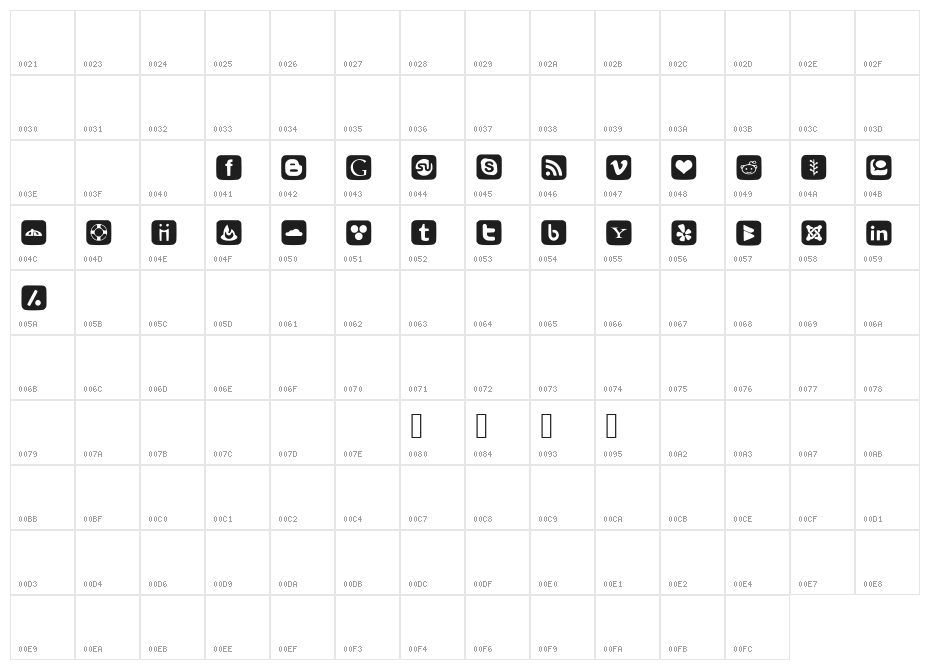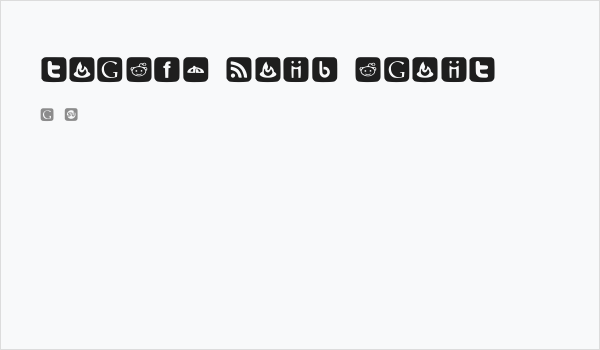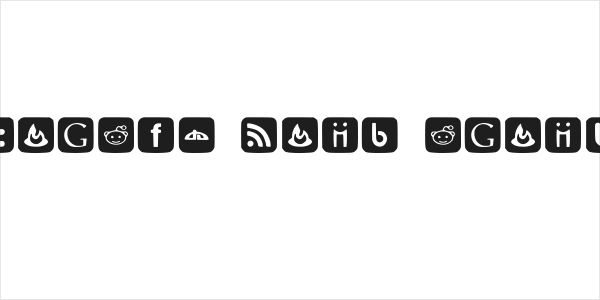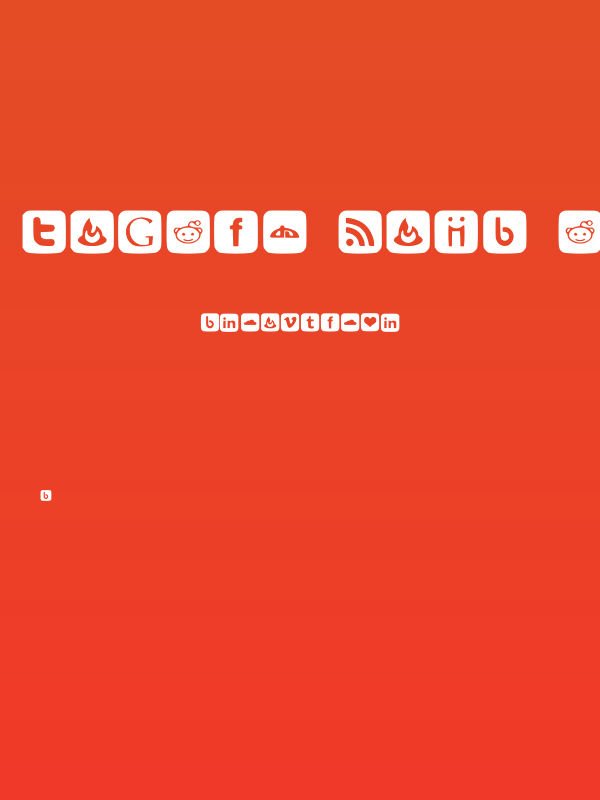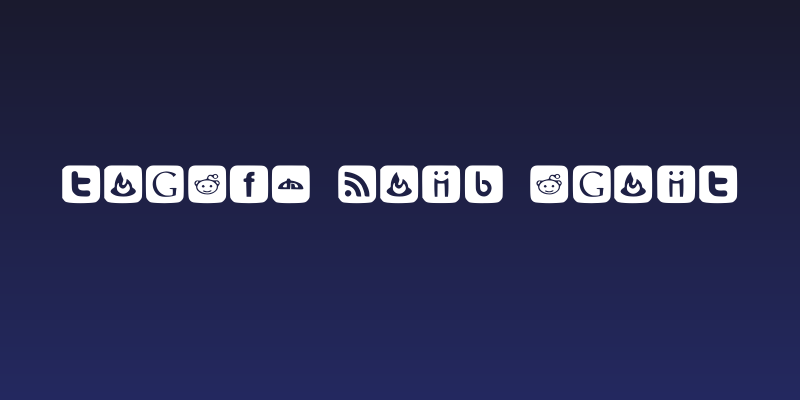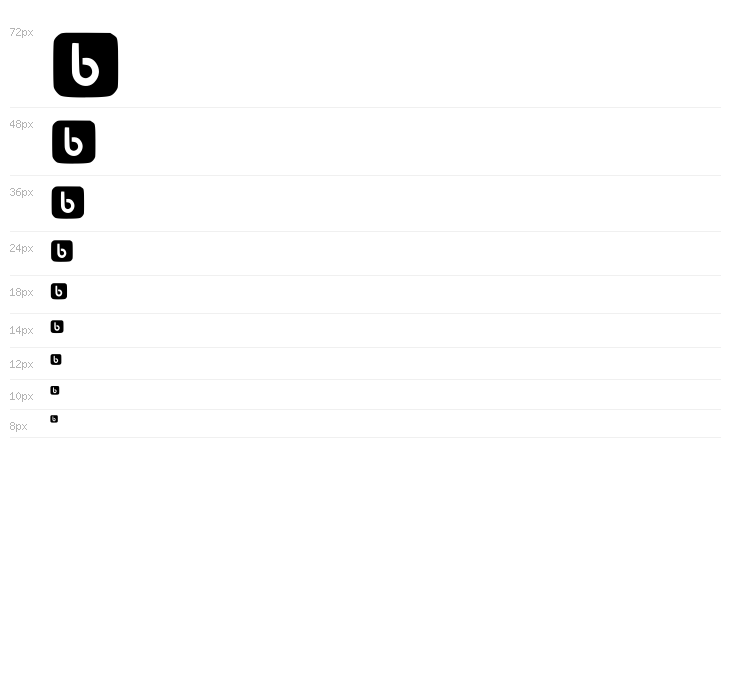
SOCIAL FONT ICONS Font
SOCIAL FONT ICONS Description
A collection of social media and web-related icons, each enclosed in a rounded square, rendered in a bold, high-contrast, monochrome style. The icons are simple, easily recognizable, and designed for clarity at small sizes.
| Overall Style | Modern, Minimalist, Decorative |
| Use Case | Icons, UI elements, Buttons |
| Proposed Projects | Websites, app interfaces, social media buttons, digital dashboards, presentations. |